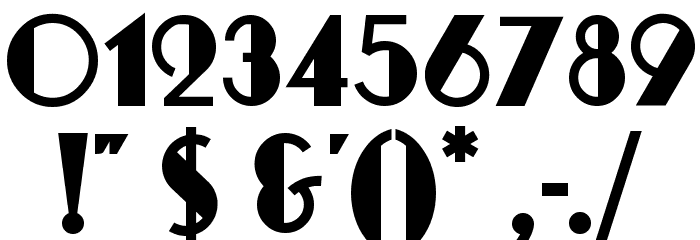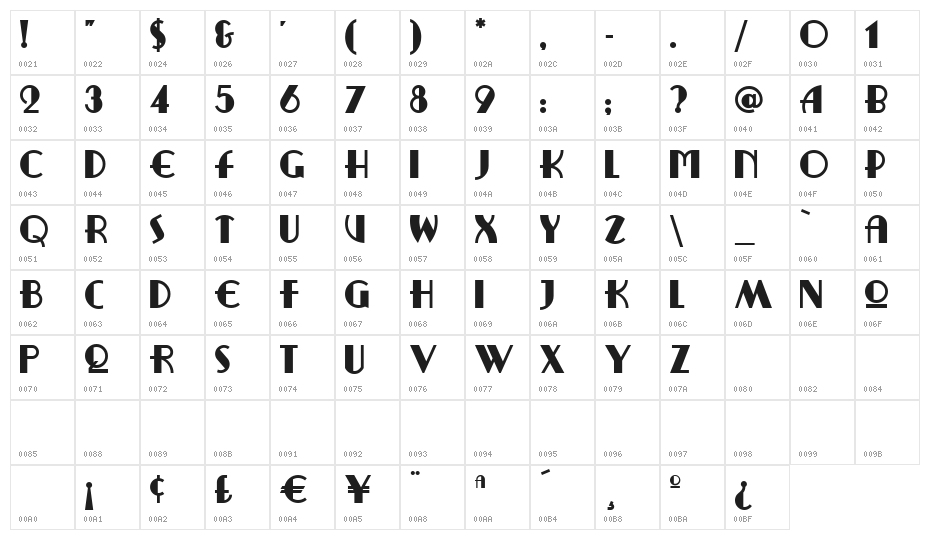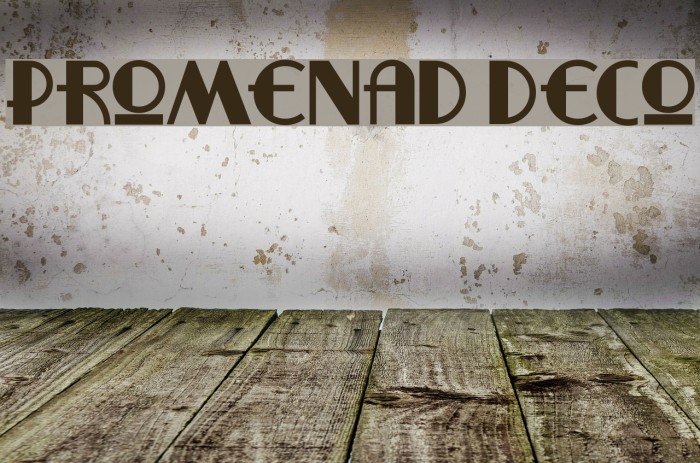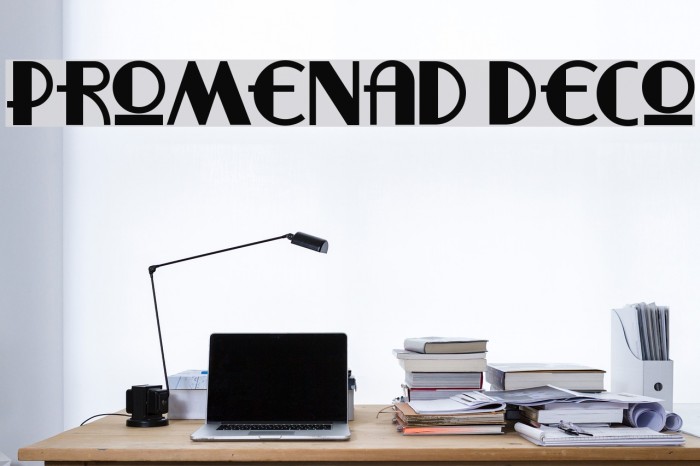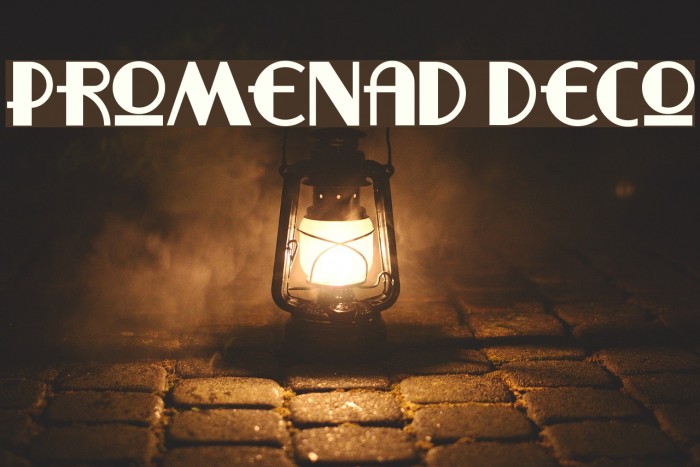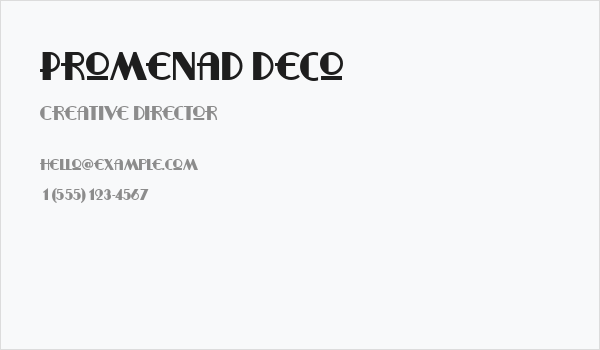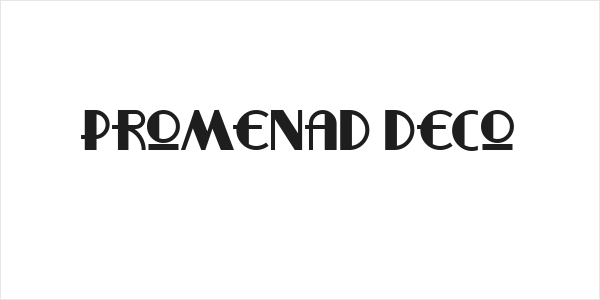
Promenad Deco Font
Promenad Deco Description
This font features a bold and striking Art Deco style, characterized by geometric shapes and strong lines. The uppercase letters are distinct with sharp angles and a sense of symmetry, while the lowercase letters maintain a consistent style that complements the uppercase. The numerals are equally bold, with unique cuts and curves that add to the overall aesthetic. Special characters are designed with the same attention to detail, ensuring a cohesive look across all glyphs. This font exudes a sense of elegance and sophistication, making it ideal for projects that require a touch of vintage glamour.